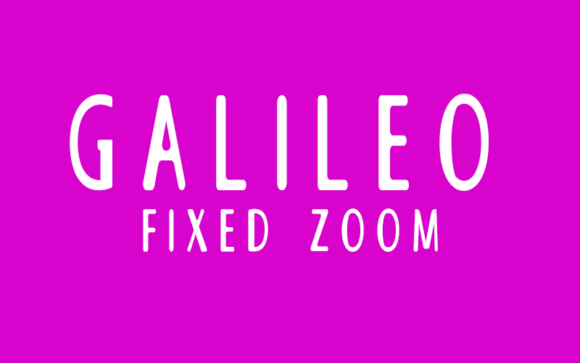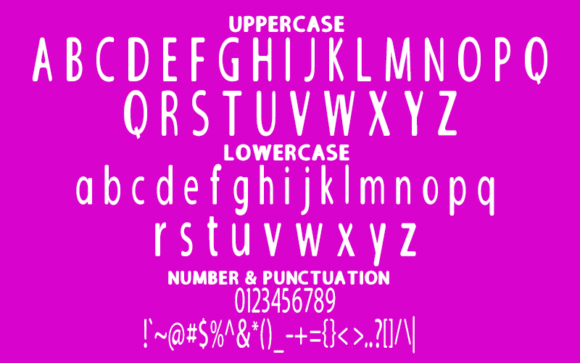
HomeSans Serif FontsGalileo Fixed Zoom Font Sans Serif Fonts Galileo Fixed Zoom Font FacebookXPinterestWhatsApp Galileo Fixed Zoom Font 1 of 5 About Galileo Fixed Zoom Font Galileo Fixed Zoom is a distinct, whimsical sans serif that blends traditional influences into a contemporary aesthetic. Use Galileo Fixed Zoom to achieve an exquisite, yet subtle look and maximum versatility. DOWNLOAD NOW People also explored Falling in Love Font Lastory Font Kathrine Font Fresh Hansler Font Thursday Font Relax Font Beloved Angeline Duo Font Present Day Font Wednesday Font 359 0 TagsGalileo Fixed Zoom Font Previous articleGalileo Various FontNext articleBokeseni Fat Font LEAVE A REPLY Cancel reply Comment: Please enter your comment! Name:* Please enter your name here Email:* You have entered an incorrect email address! Please enter your email address here Website: Save my name, email, and website in this browser for the next time I comment. Personal Use Free Fribash Personal Use Free Read more about this font Hair Thinned Personal Use Free Read more about this font Little Pixel Personal Use Free Read more about this font Rocketto Personal Use Free Read more about this font BLOG How to Cut Any Font on Cricut: Convert a Font to SVG (Free) Turn any font into a clean SVG so it cuts crisp on Cricut - a quick 3-step workflow using a free font-to-SVG tool. Fonts That Capture the Spirit of New York City Best Fonts for YouTube Videos: Make Your Thumbnails Stand Out How to Install and Use Fonts on Windows, macOS, and Web Projects